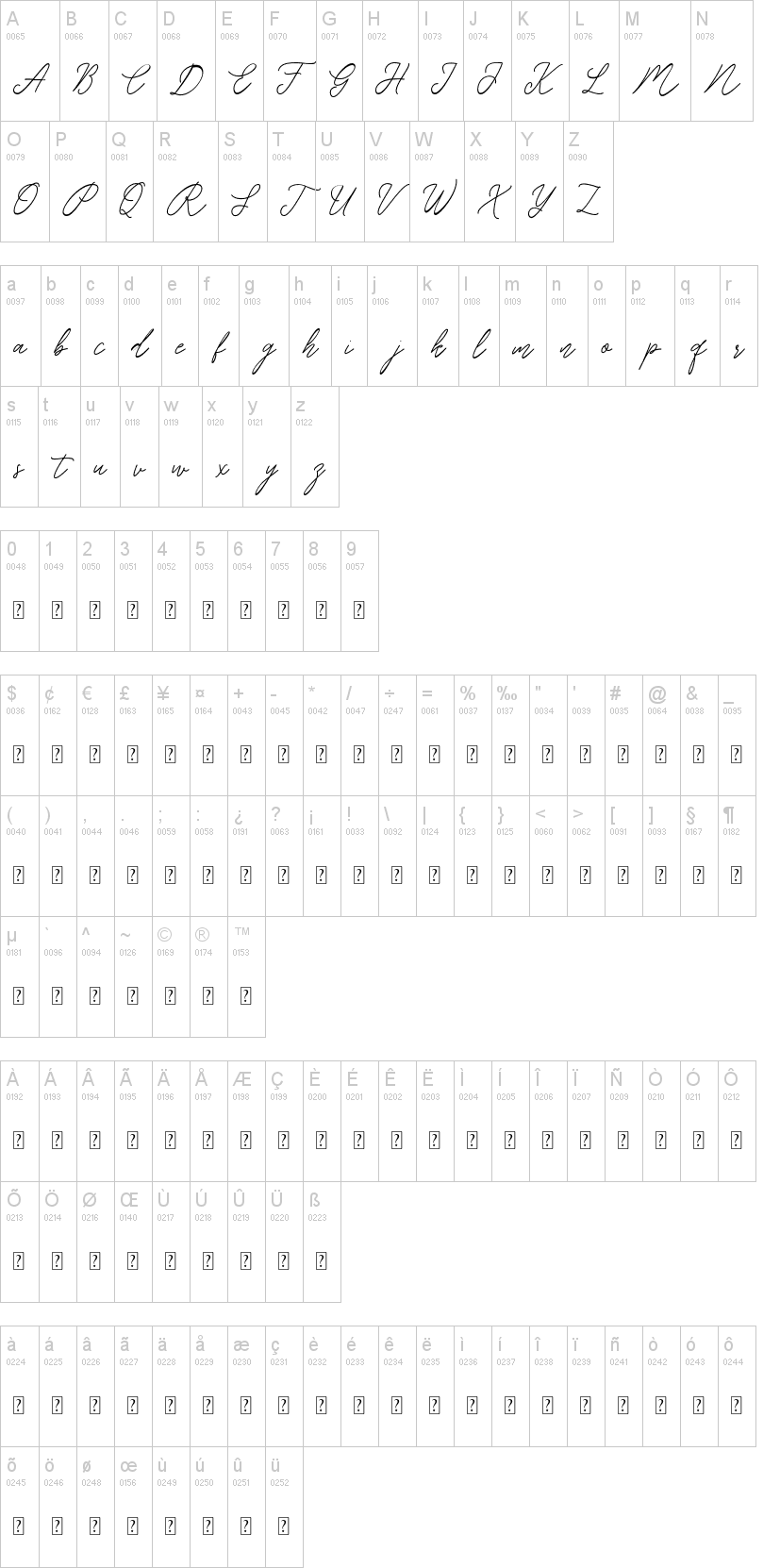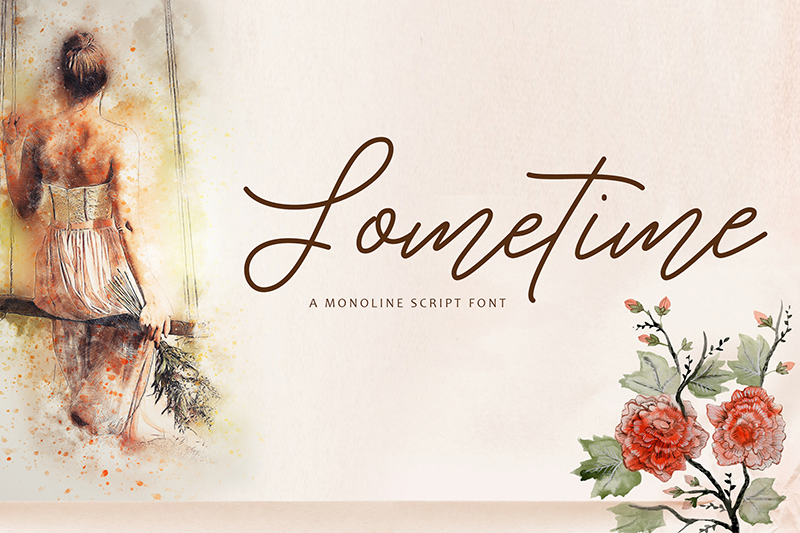
Sometime Font is an elegant Monoline font with natural and organic look. Sometime Font is perfect for branding projects, logo, wedding designs, social media posts, advertisements, product packaging, product designs, label, photography, watermark, invitation, stationery and any projects that need handwriting taste.